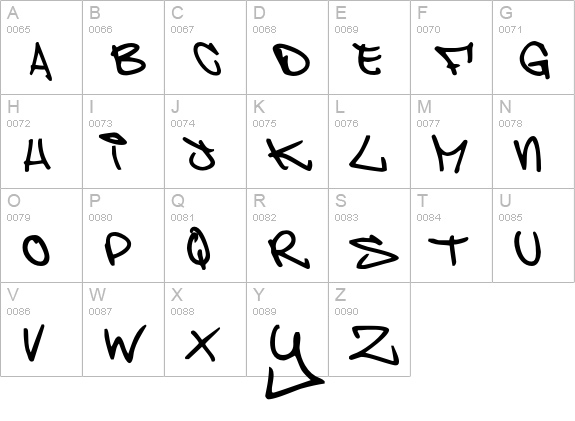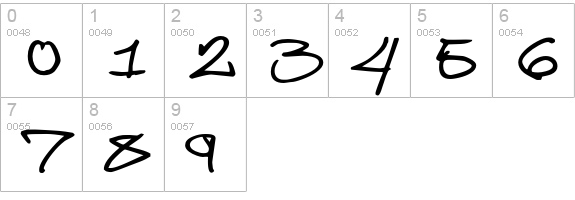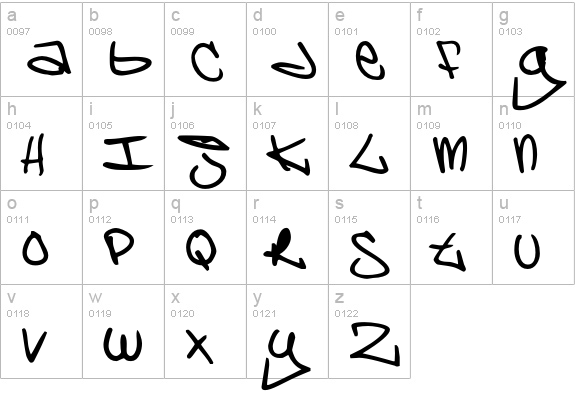
BrooklynKid Font Details
BrooklynKid font is a modern and stylish typeface that perfectly captures the vibrancy and diversity of Brooklyn, New York. With its clean lines and bold strokes, this font exudes urban coolness and youthful energy. The unique design of BrooklynKid font makes it versatile and suitable for a wide range of design projects, from posters to social media graphics. Best of all, this font is available for free download at FontsMarket.com, making it accessible to all designers and creatives looking to add a touch of Brooklyn flair to their work. Let BrooklynKid font be your go-to choice for adding a touch of urban sophistication to your designs.